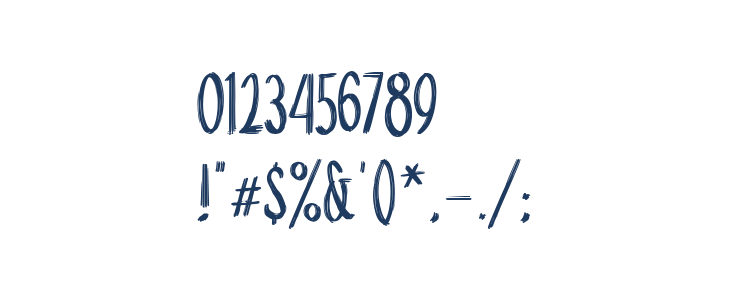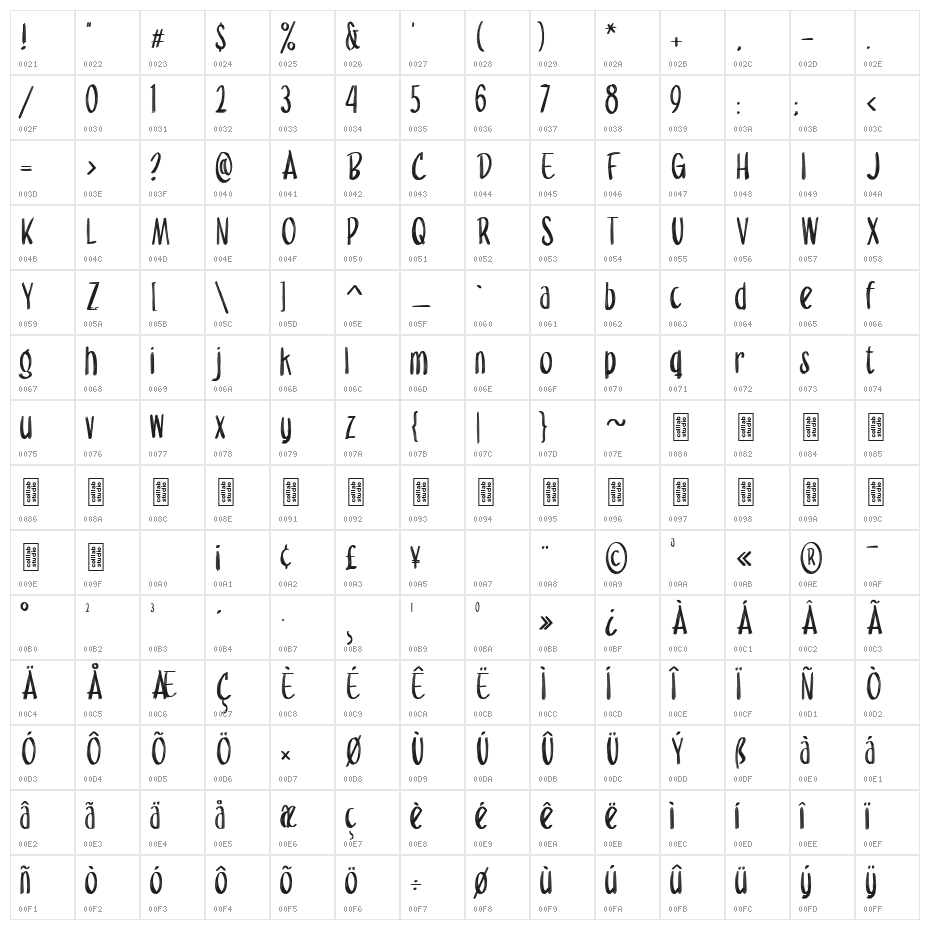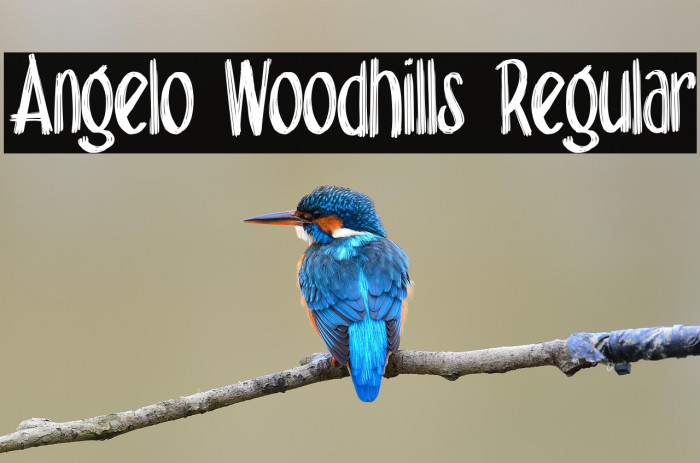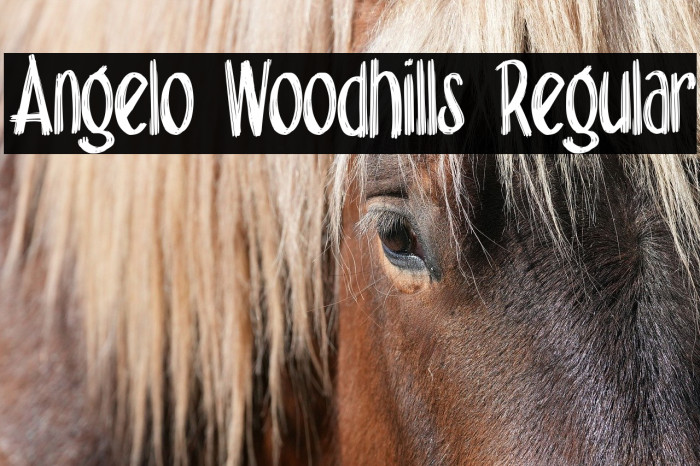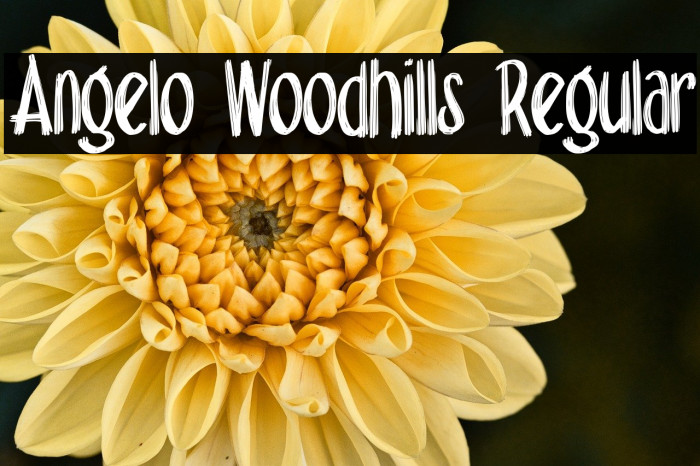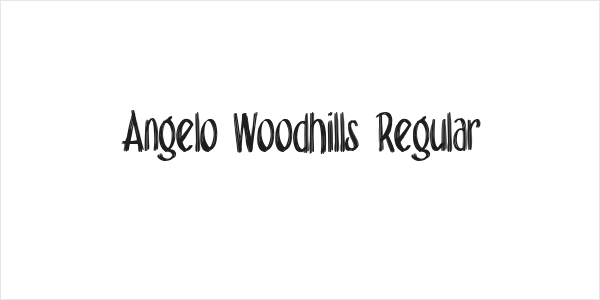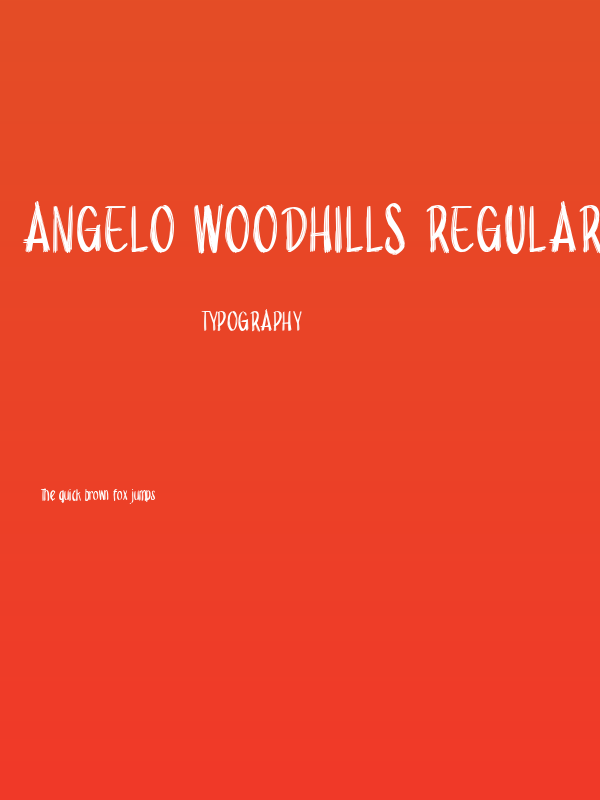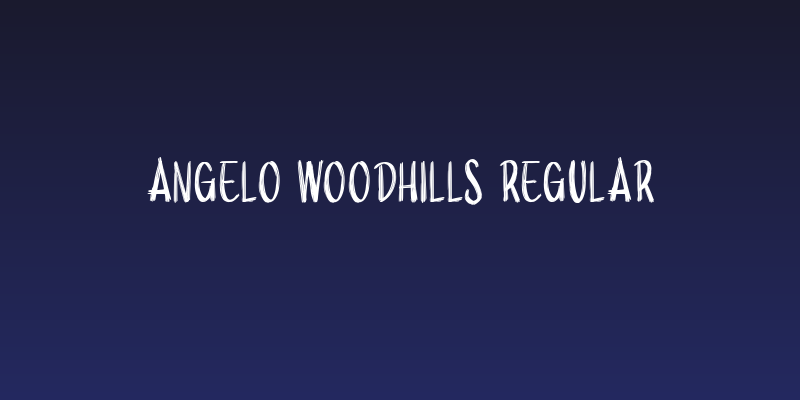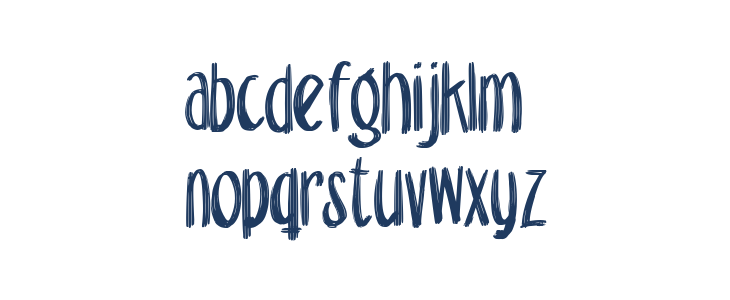
Angelo Woodhills Regular Font
Angelo Woodhills Regular Description
This font features a hand-drawn, brushstroke style that exudes a casual and artistic vibe. The characters are tall and slightly narrow, with uneven strokes that give a dynamic and energetic feel. The uppercase and lowercase letters maintain a consistent style, while the numbers and special characters blend seamlessly with the overall aesthetic. The irregularity in the strokes adds a unique charm, making it ideal for creative projects that require a personal touch. The font's playful nature is balanced by its legibility, making it versatile for various design needs.
| Proposed Projects | Ideal for posters, greeting cards, social media graphics, and branding projects that require a personal and creative touch. |